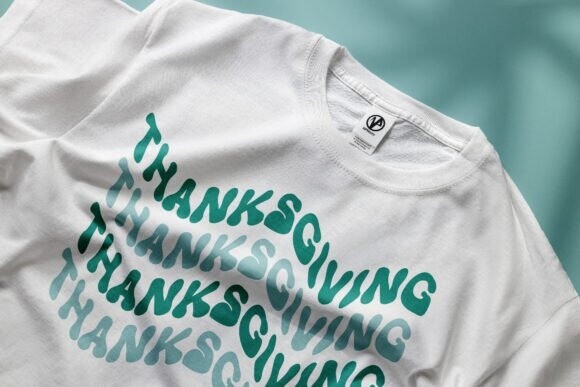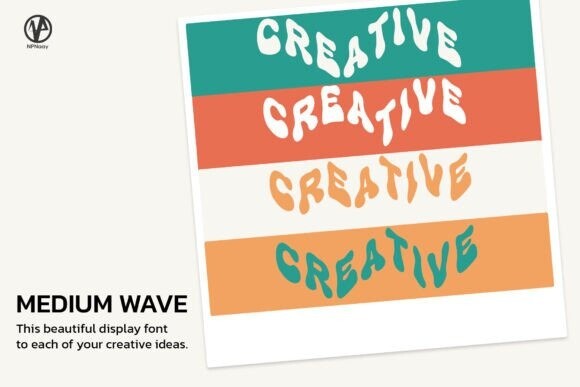
Medium Wave Font
Designer: NPNaay
Medium Wave Font is a Groovy and display font that will brighten up each of your designs. Use it on your retro themed 90s, 80s, 70s, 60s Script projects, banners, social media, invitations, cards and so much more. Add it confidently to your projects, and you will love the results.